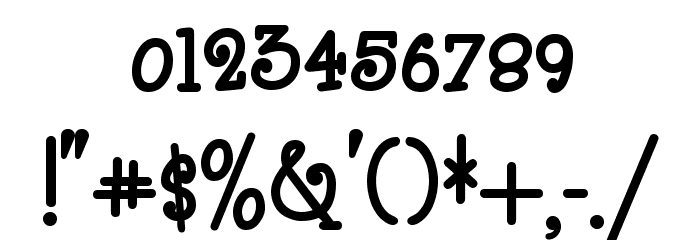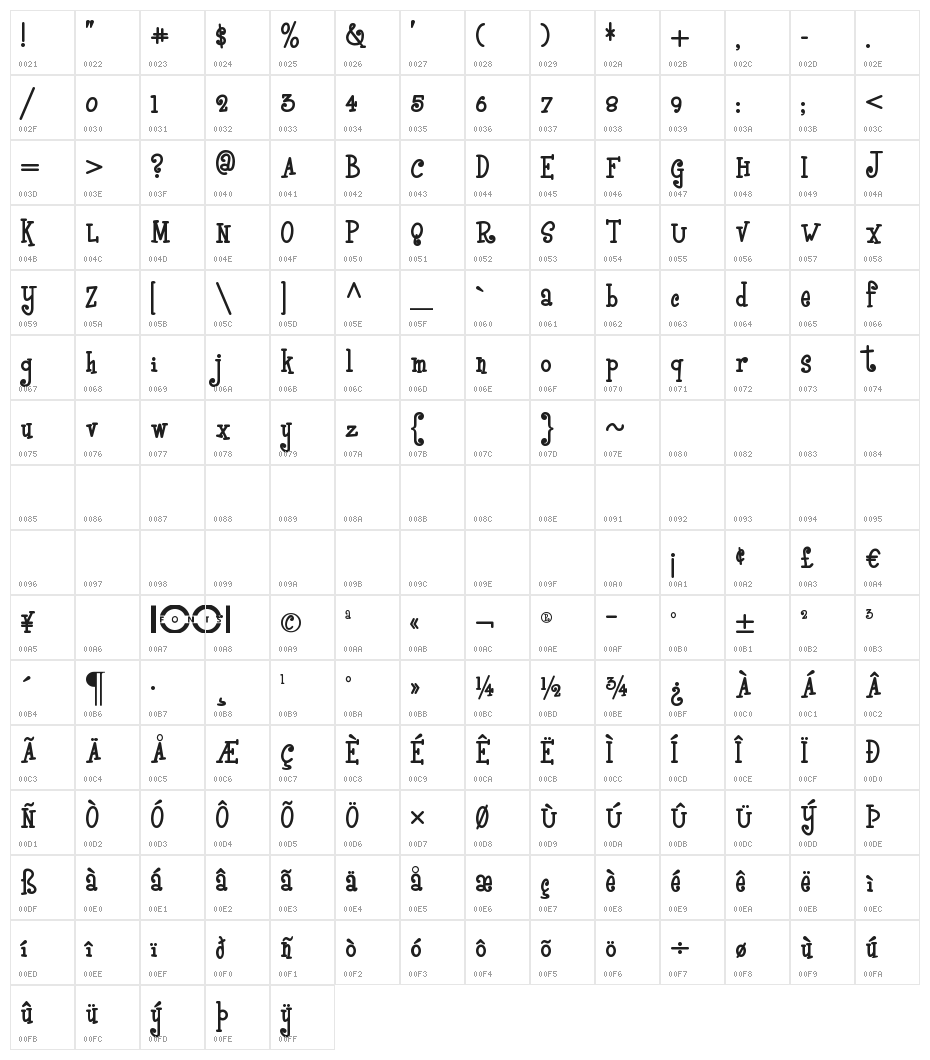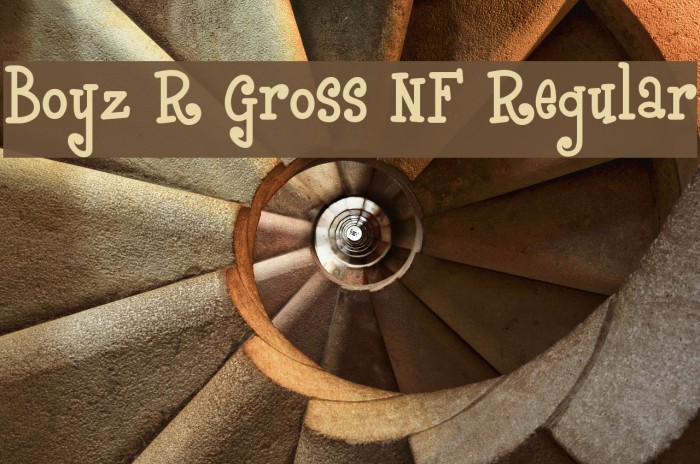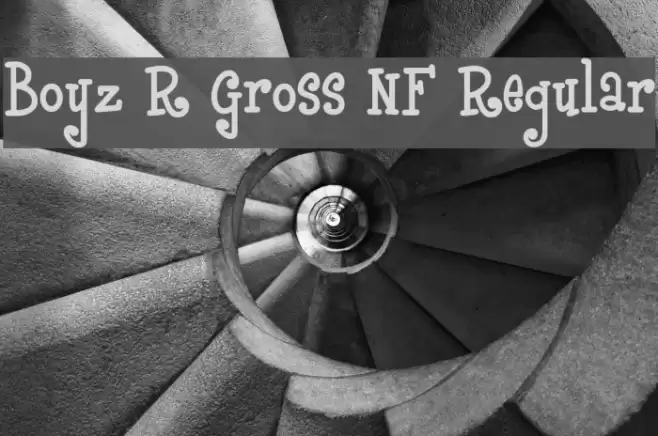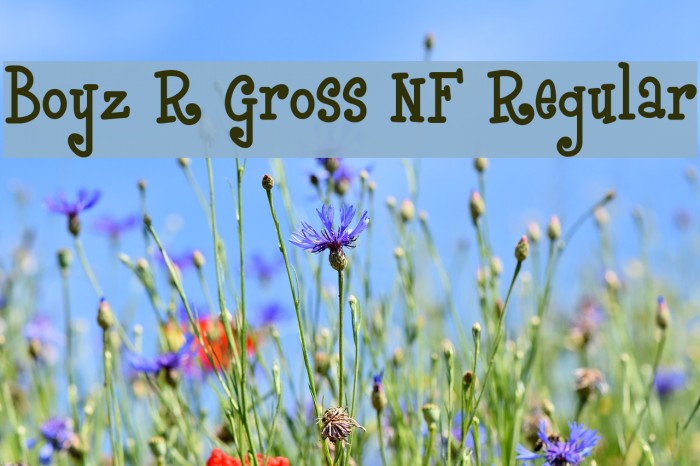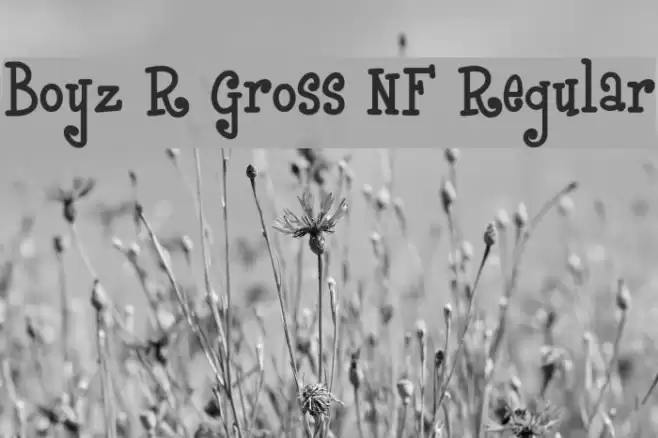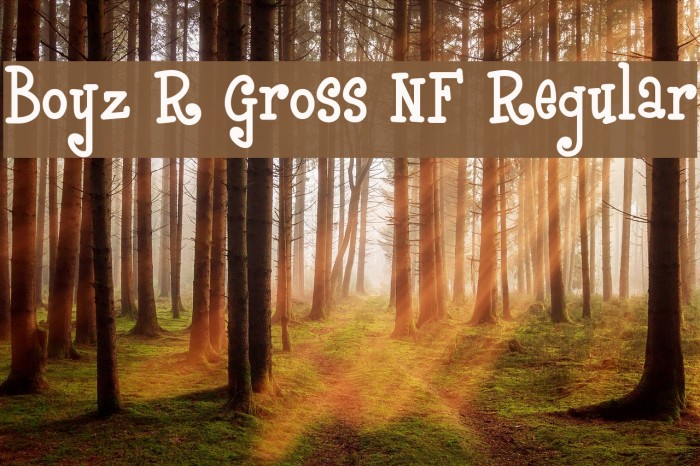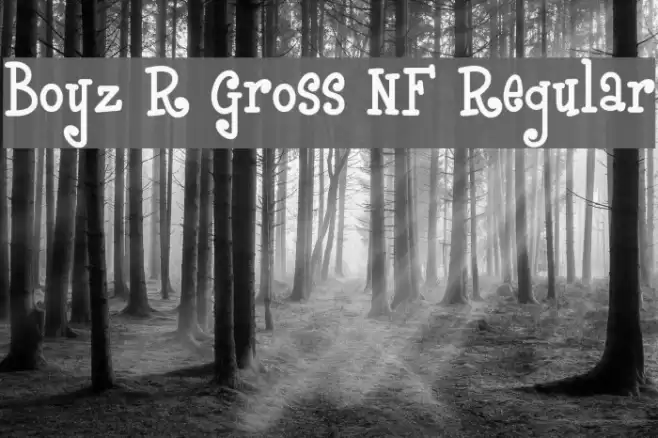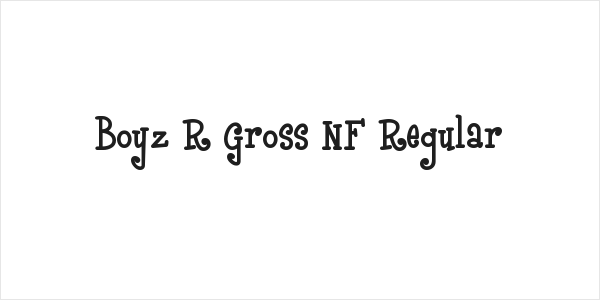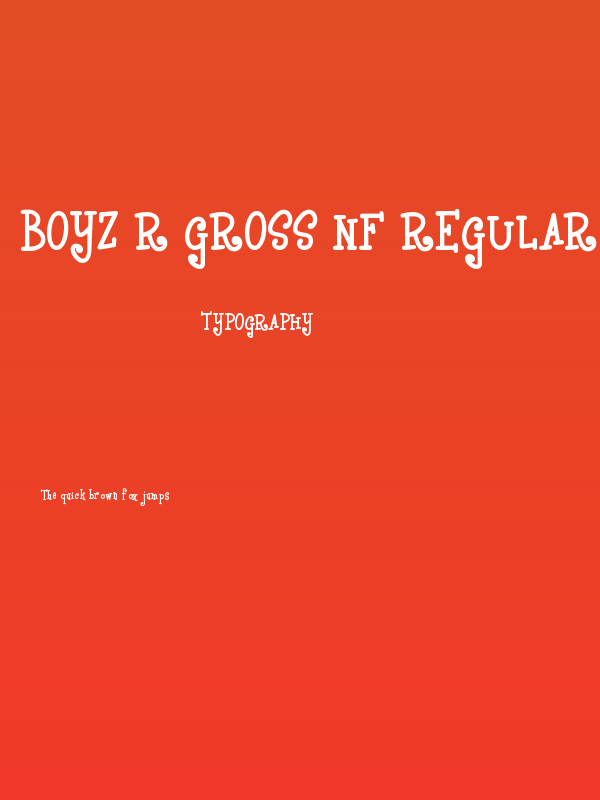
Boyz R Gross NF Regular Font
Boyz R Gross NF Regular Description
This playful and whimsical font features bold, rounded characters with a quirky, cartoon-like appearance. The uppercase letters are slightly taller and more pronounced, while the lowercase letters maintain a consistent style with unique, exaggerated serifs. Numbers and special characters follow the same playful design, making the font suitable for creative and informal projects. The overall look is fun and engaging, with a touch of retro charm that adds personality to any text.
| Overall Style | Playful, Retro |
| Proposed Projects | Ideal for children's books, comic strips, playful branding, and party invitations. |